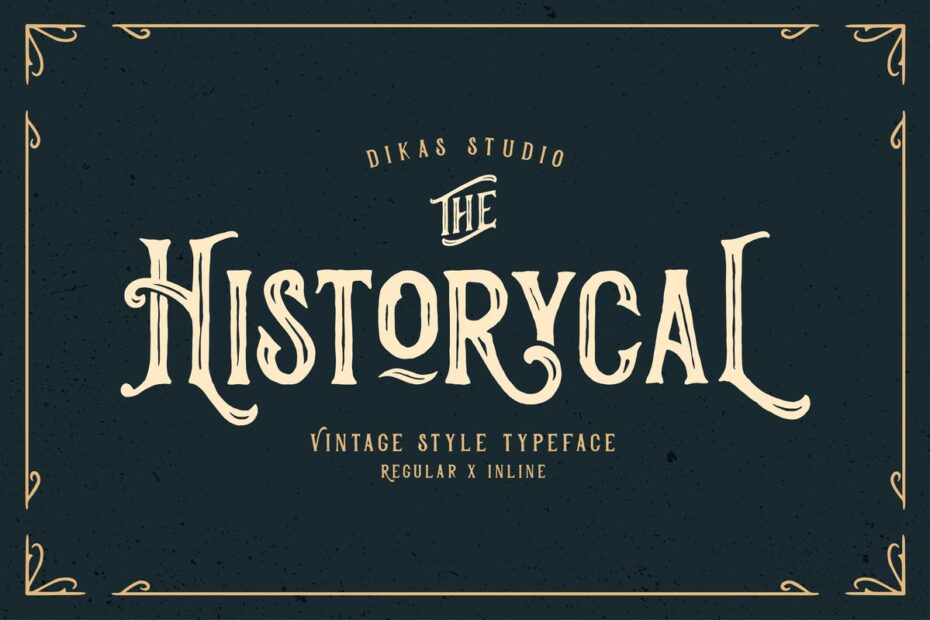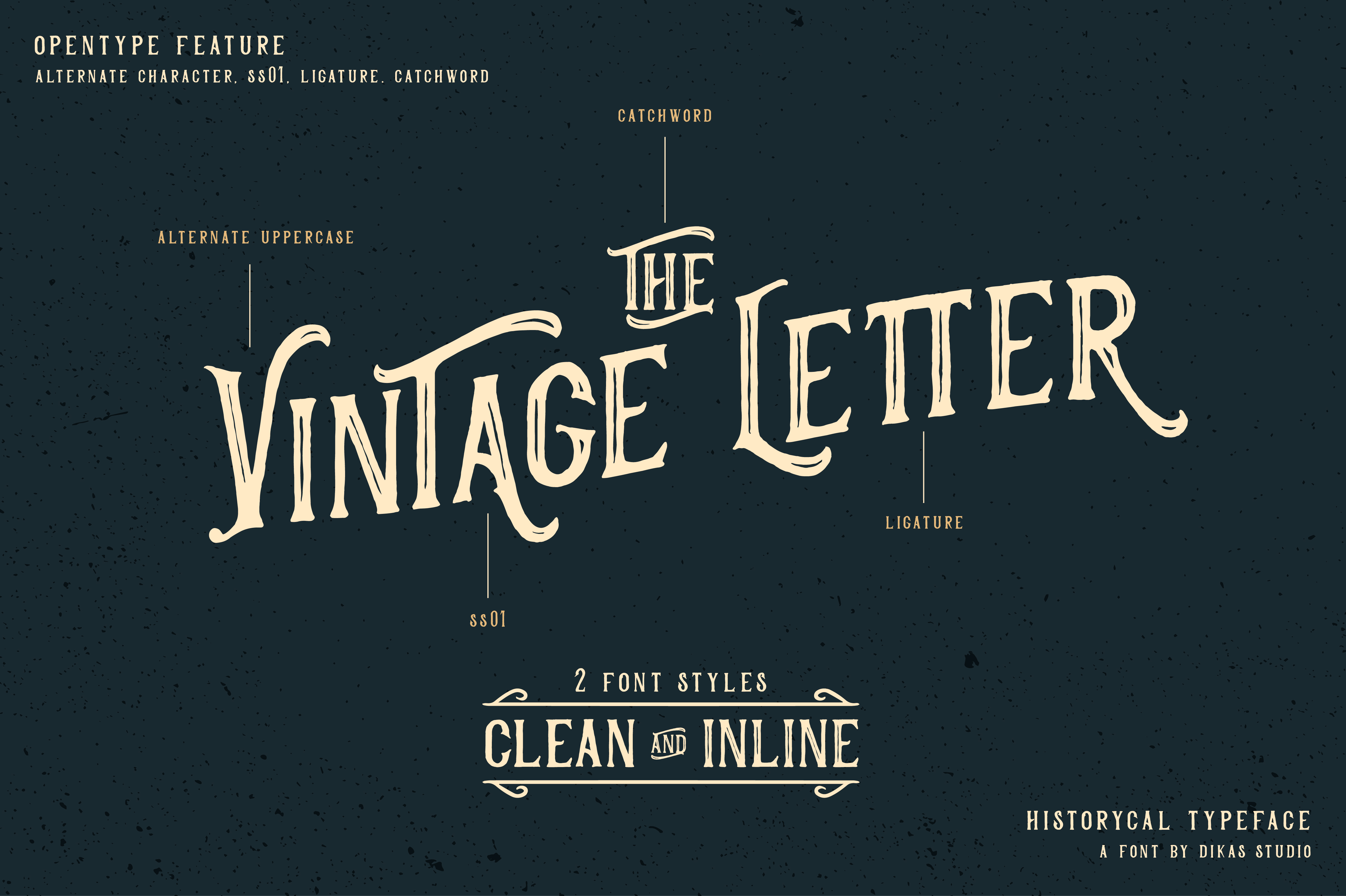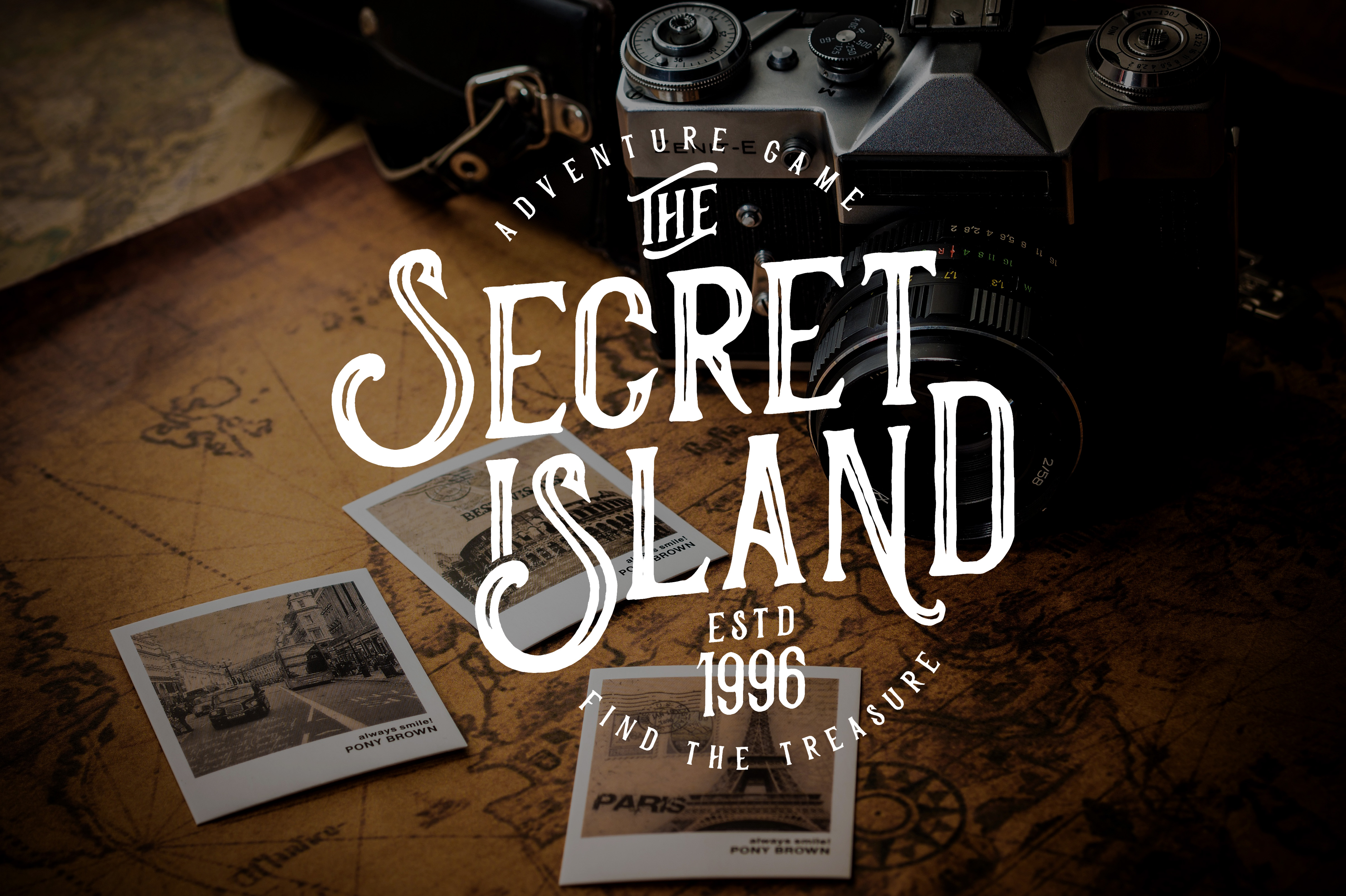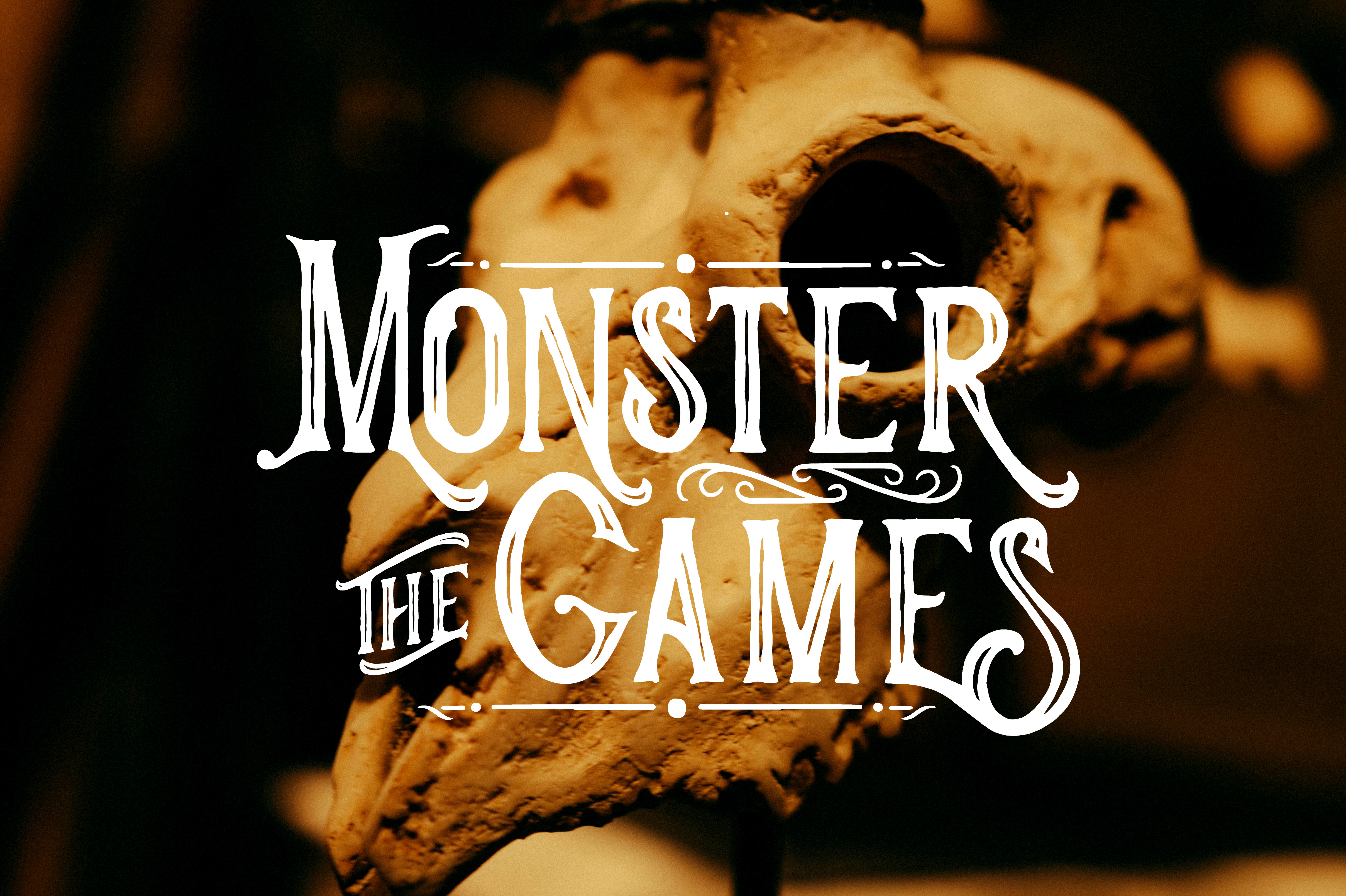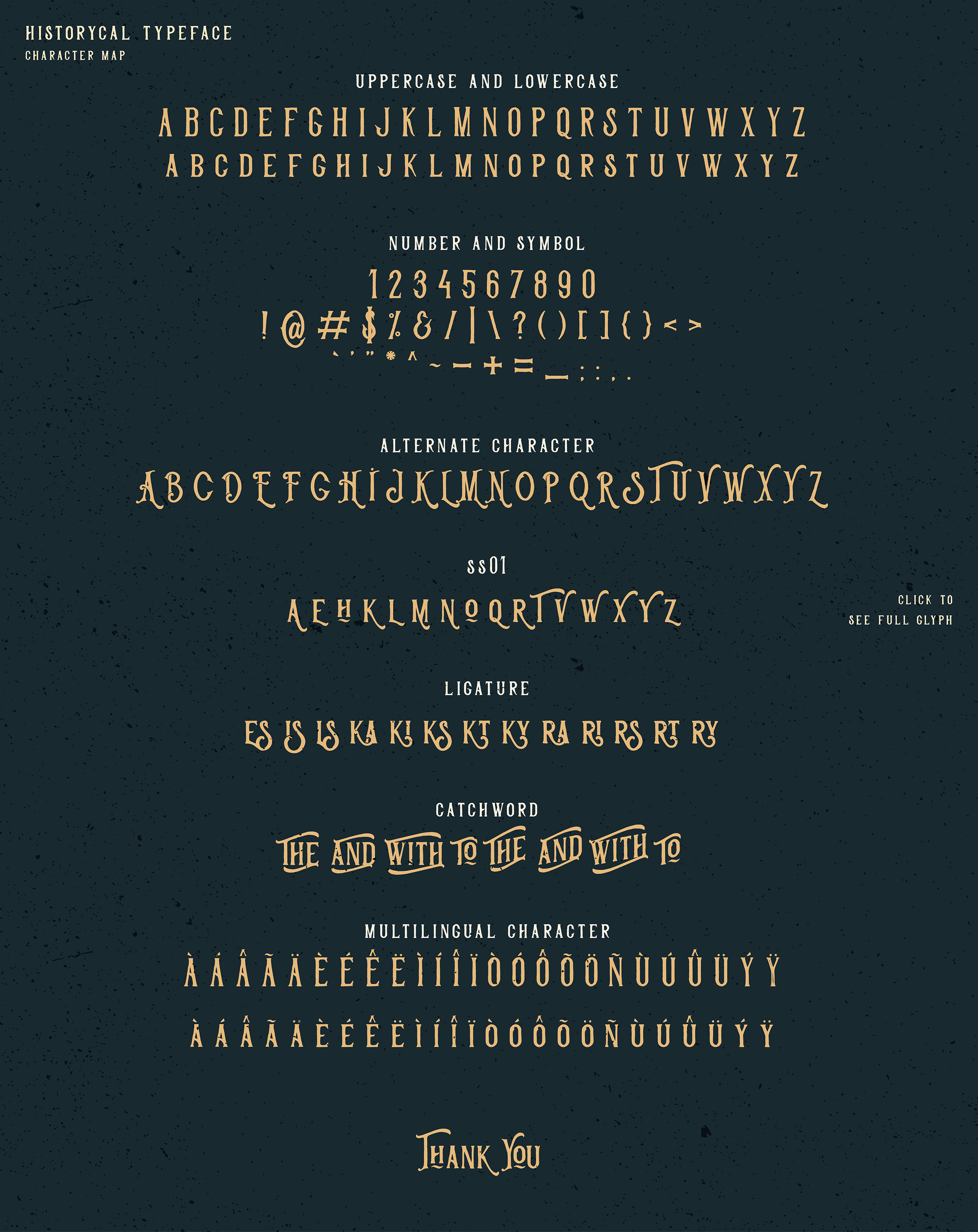
The Perfect Blend of Past and Present: Unleashing the Power of Historycal Font
Have you ever stared at a blank page, desperately searching for the perfect font to bring your design to life? That’s exactly what happened to me, and it was then that I stumbled upon Historycal Font – a vintage-inspired masterpiece that has been a game-changer for my creative endeavors.
Historycal Font is a unique and versatile typeface that combines the elegance of the past with the modern touch of today. With its various styles, this font offers an unparalleled level of customization, allowing designers to add a personal touch to their work. Whether you’re working on a retro-themed project or simply looking to add some character to your designs, Historycal Font is the perfect choice.
As a designer, you know how crucial it is to stand out from the crowd. With Historycal Font, you can rest assured that your designs will pack a punch and garner attention. Its versatility and timeless appeal make it a valuable asset for any designer looking to take their work to the next level.
Key Features of “Historycal Font”
- Unique Characteristics: The font features a unique blend of historical and modern elements, with intricate details and ornate flourishes that evoke a sense of nostalgia and sophistication.
- Customization Options: The font includes a range of customization options, including ligatures, swashes, and alternative characters, allowing designers to add a touch of personality to their work.
Designer Review: Historycal Font
Overall, I’d say the Historycal Font has some great qualities that could make it a valuable addition to a designer’s toolkit. ✨ One thing that stands out is its unique blend of historical and modern elements, which could be perfect for projects that need to convey a sense of tradition while still feeling contemporary. ✨ The font’s versatility also makes it suitable for a wide range of applications, from book titles to website headers.
However, there are a few limitations that might hold it back. ⚠️ One of the main issues is the font’s inconsistent spacing, which can make it difficult to read at certain sizes. ⚠️ Additionally, the font’s historical references might not be immediately clear to non-designers, which could lead to confusion or misinterpretation. ⚠️ Finally, the font’s larger size can sometimes feel clunky or overwhelming.
Ultimately, I think the Historycal Font has a lot of potential, but it needs some refinement to truly shine. With some tweaks to the spacing and a more clear vision for its historical references, I could see this font becoming a staple in many designers’ collections.
- Unique blend of historical and modern elements
- High versatility in applications
- Perfect for projects that need to convey tradition and modernity
- Inconsistent spacing
- Historical references might not be immediately clear
- Larger size can feel clunky or overwhelming
Historical Font is ideal for creating vintage-inspired designs, such as:
2. Historical event posters and advertisements.
3. Book covers and literary-themed designs.
Alternatives to Historycal Font
Playfair Display is a luxurious, high-end font suitable for titles and headings. It’s ideal for use in branding, advertising, and high-end publishing. It has a more elegant and refined feel compared to Historycal Font, which has a more distressed and vintage look. Playfair Display is a great choice when you want to convey sophistication and elegance.